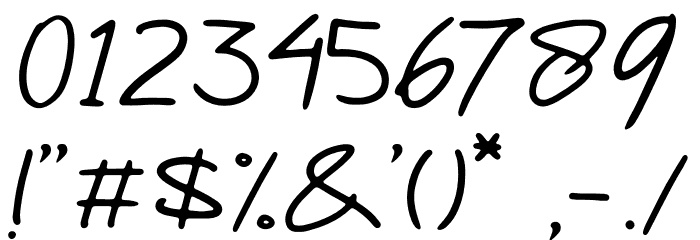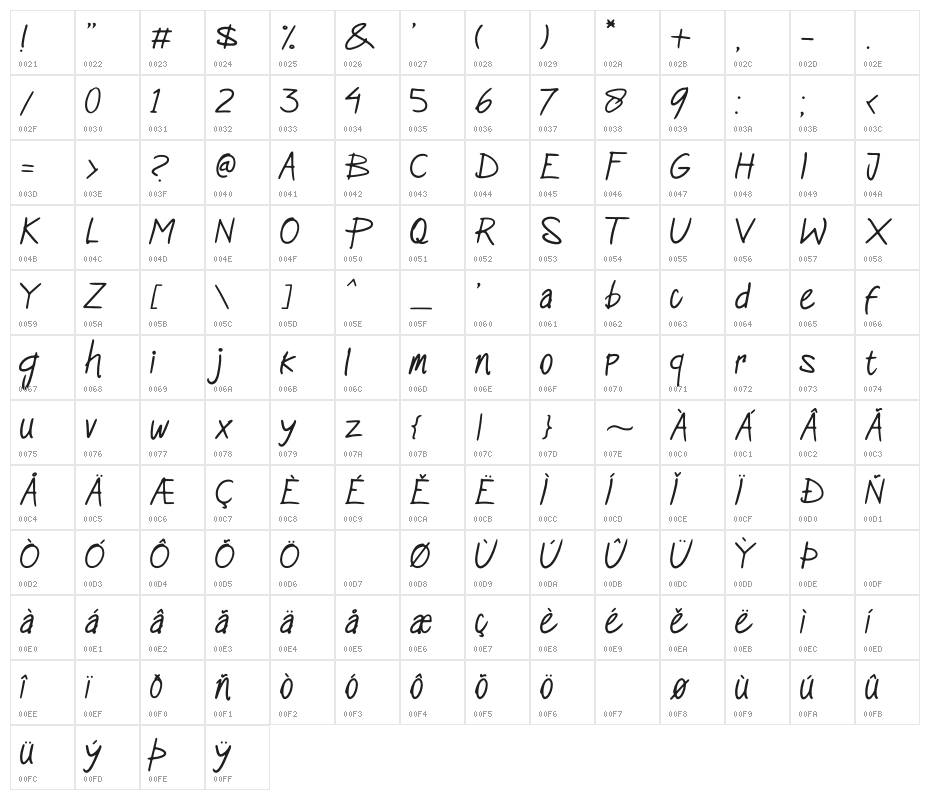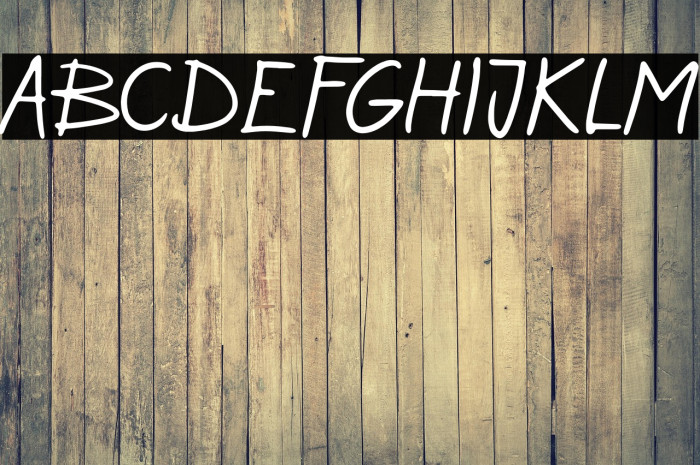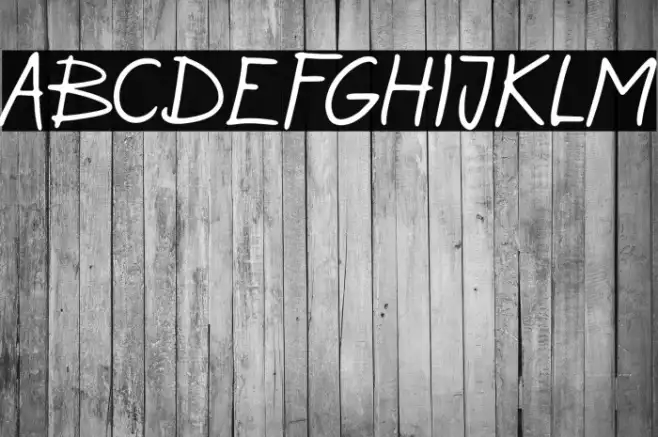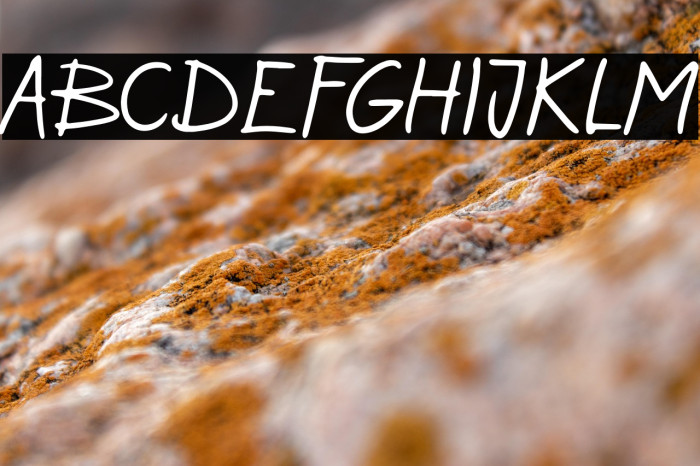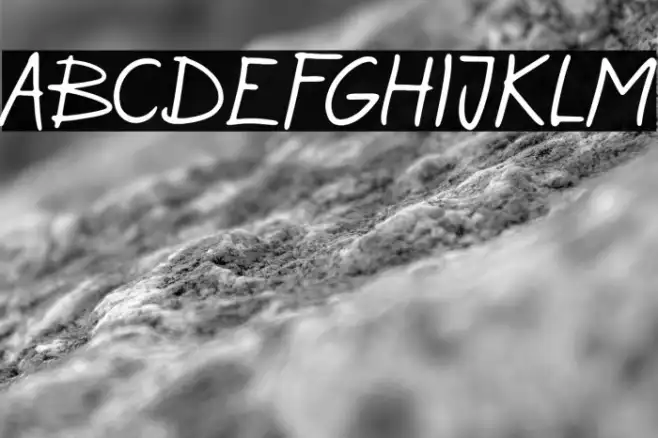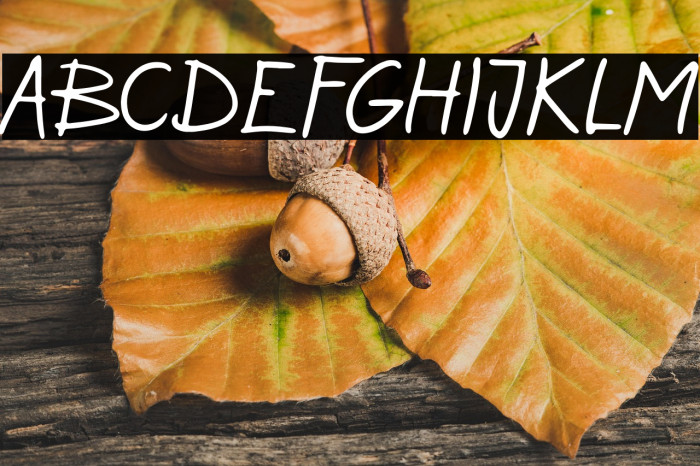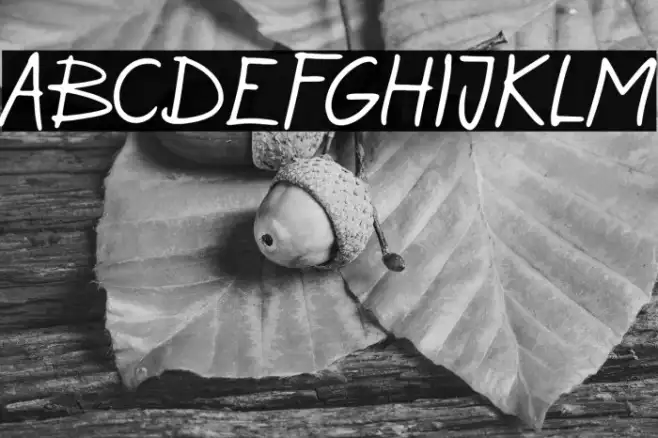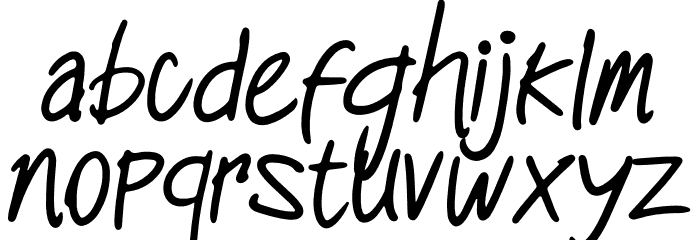
mocimoci Font
mocimoci Description
This font features a lively and dynamic handwritten style, characterized by its fluid and slightly irregular strokes that mimic natural handwriting. The uppercase letters are tall and slightly narrow, while the lowercase letters maintain a consistent flow with occasional loops and curves, adding to the casual and approachable feel. The numerals are distinct and easy to read, with a playful touch that complements the overall style. Special characters are well-integrated, maintaining the handwritten aesthetic. This font is ideal for projects that require a personal and informal touch, such as invitations, greeting cards, and creative branding.